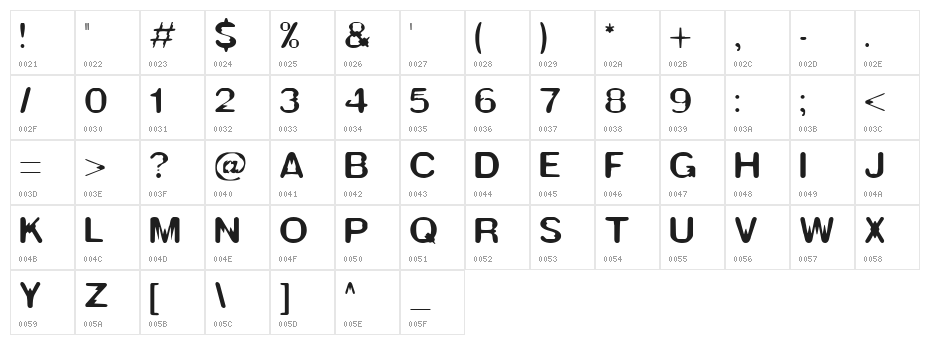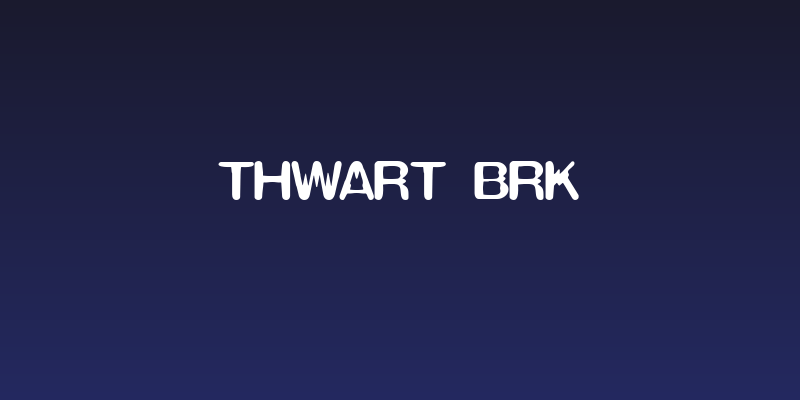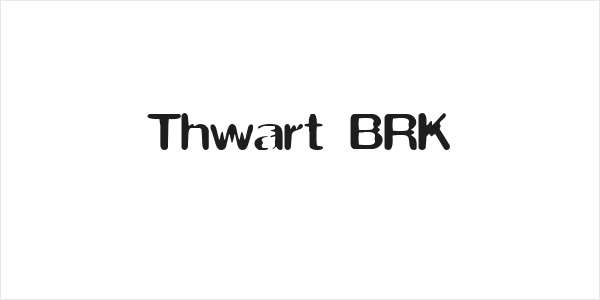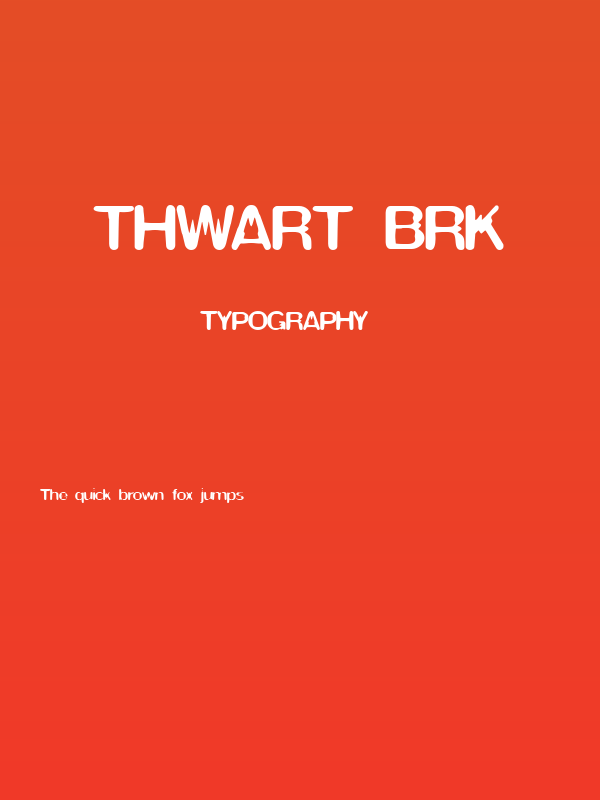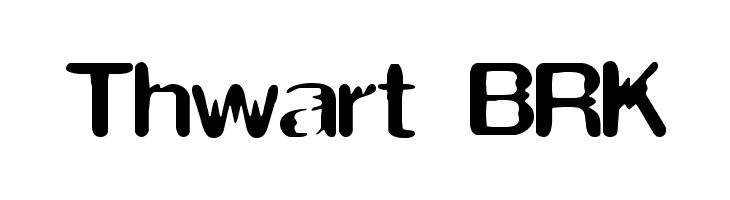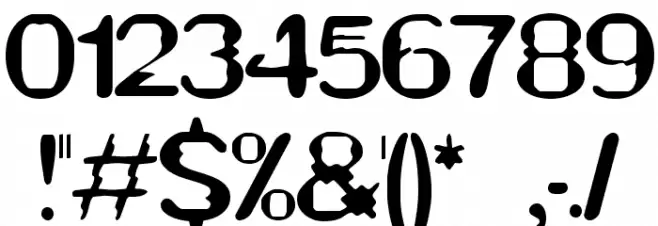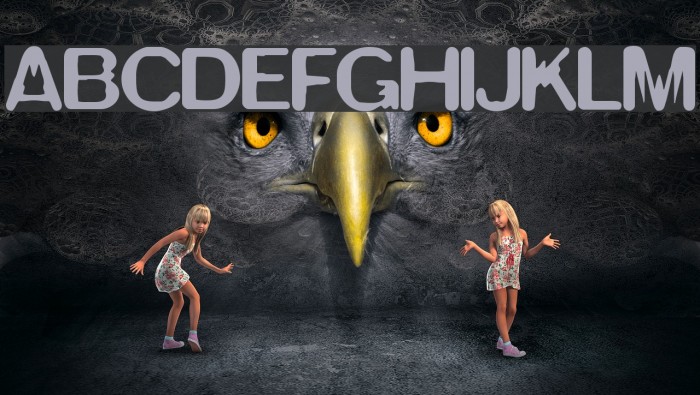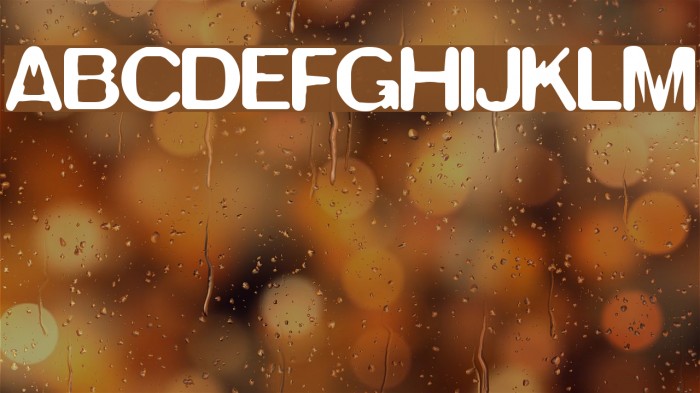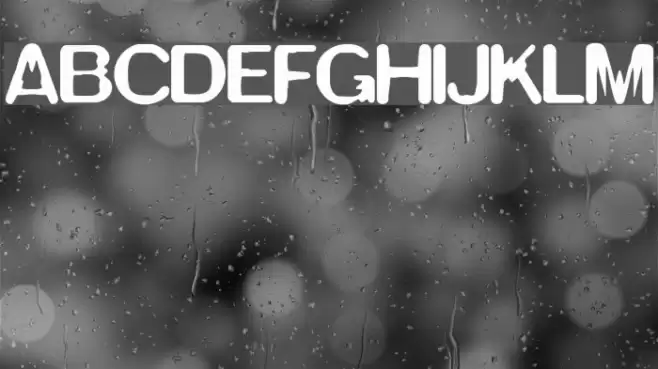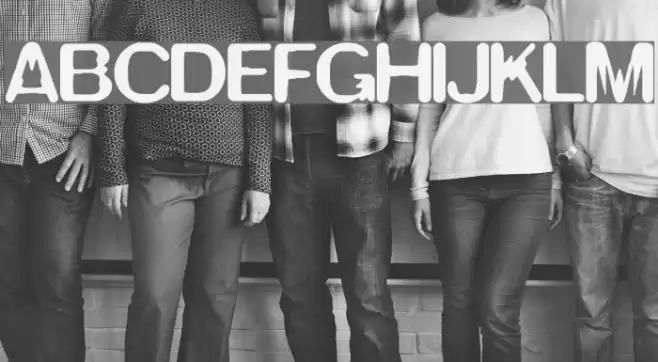
Thwart BRK Font
Thwart BRK Description
This font features a bold and dynamic style with a distressed, grunge-like appearance. The characters are uniquely designed with irregular edges and varying stroke thickness, giving it a rugged and edgy look. The uppercase and lowercase letters maintain a consistent height, while the numbers and special characters follow the same stylistic theme. This font is ideal for projects that require a bold statement or an urban, rebellious feel.
| Overall Style | Modern, Edgy |
| Proposed Projects | Ideal for music album covers, posters, streetwear branding, and edgy graphic design projects. |